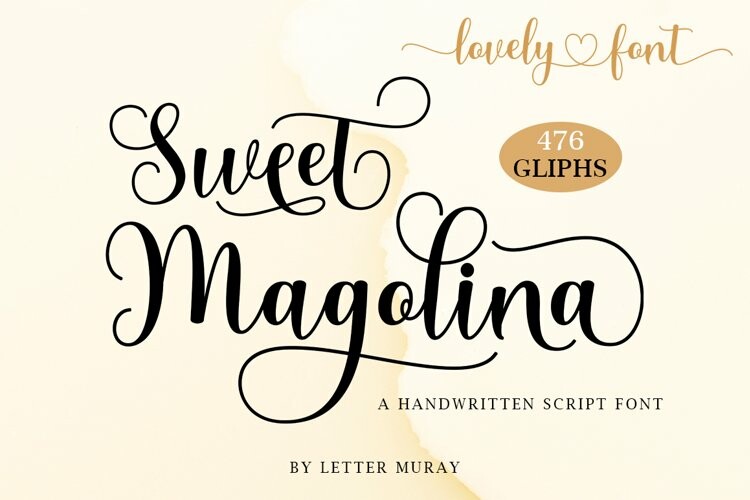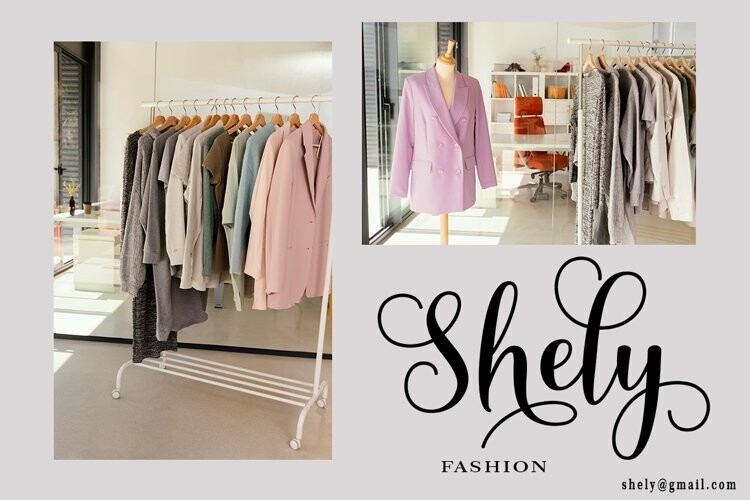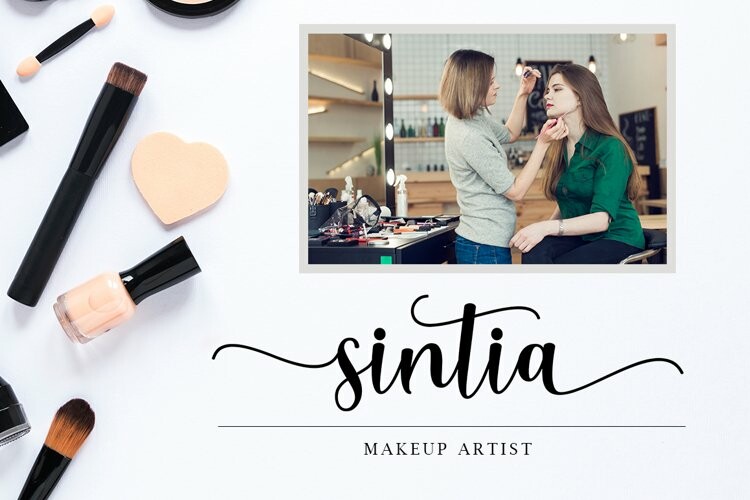
Sweet Magolina Font
Sweet Magolina FontHello everyone, I want to introduce my newest font Sweet Magolina Script is a beautiful modern calligraphy typeface, I hope you will be interested in this font, if you want to use it for your work.
This font can be used easily and simply because of the many features in it. contains a complete set of lowercase and uppercase letters, a wide variety of punctuation marks, numbers, and multilingual support. fonts also contain a lot
ligatures and many contain alternative Stylistic Sets such as alternative heart swash to join two words, for example: Kelvin-Heleni.